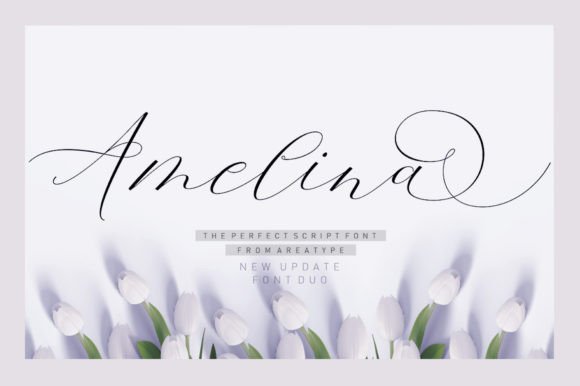
Introducing Amelina Duo Font: The Perfect Choice for Personalized Designs
Are you looking for a font that can add a touch of elegance and sophistication to your designs? Look no further than Amelina Duo Font. This lovely duo script font is perfect for creating personalized designs that require a high level of customization, such as wedding invitations, thank you cards, greeting cards, logos, and more.
What Makes Amelina Duo Font So Special?
Amelina Duo Font is a beautifully crafted script font that features a unique and elegant style. Its flowing lines and curves make it perfect for creating designs that require a personal touch. Whether you’re looking to create a romantic wedding invitation or a stylish logo, Amelina Duo Font is the perfect choice.
One of the standout features of Amelina Duo Font is its versatility. It can be used on a wide range of designs, from traditional wedding invitations to modern greeting cards. Its elegant style ensures that it will complement any design, making it a great addition to your font collection.
The Benefits of Using Amelina Duo Font
There are many benefits to using Amelina Duo Font in your designs. Here are just a few:
- Personalized Style: Amelina Duo Font is perfect for creating designs that require a personal touch. Its elegant style and flowing lines make it ideal for creating customized designs that will stand out from the crowd.
- Versatility: Amelina Duo Font can be used on a wide range of designs, from traditional wedding invitations to modern greeting cards. Its elegant style ensures that it will complement any design, making it a great addition to your font collection.
Tips for Using Amelina Duo Font
Here are a few tips for using Amelina Duo Font:
- Use it for Headings: Amelina Duo Font is perfect for headings and titles. Its elegant style makes it ideal for creating eye-catching headings that will grab the reader’s attention.
- Experiment with Glyphs and Swashes: Amelina Duo Font comes with a range of glyphs and swashes that can be used to customize your designs. Experiment with different combinations to create a unique look.
- Pair it with Other Fonts: Amelina Duo Font can be paired with other fonts to create a unique and interesting design. Try pairing it with a sans-serif font for a modern look.
Amelina Duo Font is a beautiful and versatile script font that is perfect for creating personalized designs. Its elegant style and flowing lines make it ideal for creating customized designs that require a personal touch. With its PUA encoding, it’s easy to access all of the glyphs and swashes, making it easy to customize your designs. Whether you’re looking to create a romantic wedding invitation or a stylish logo, Amelina Duo Font is the perfect choice.
- What is Amelina Duo Font?: Amelina Duo Font is a lovely duo script font that is perfect for creating personalized designs that require a high level of customization.